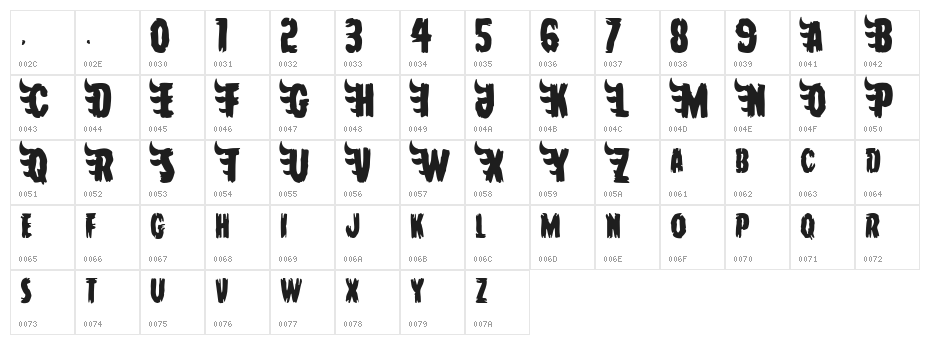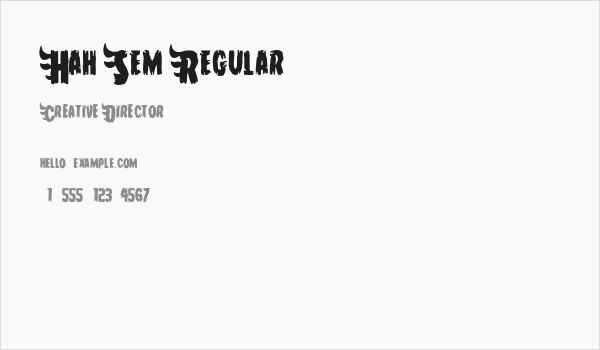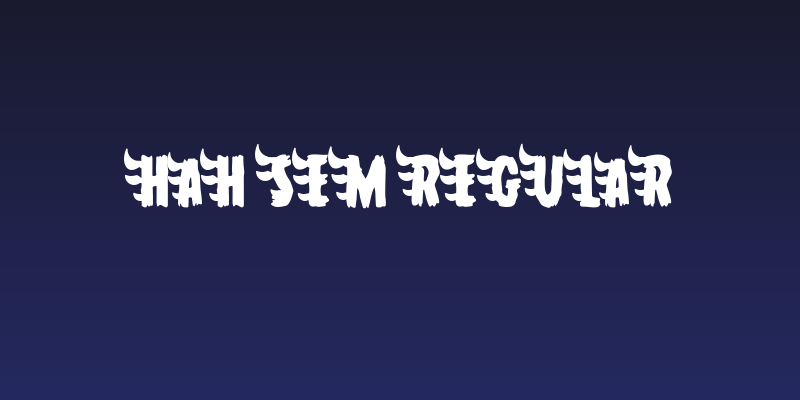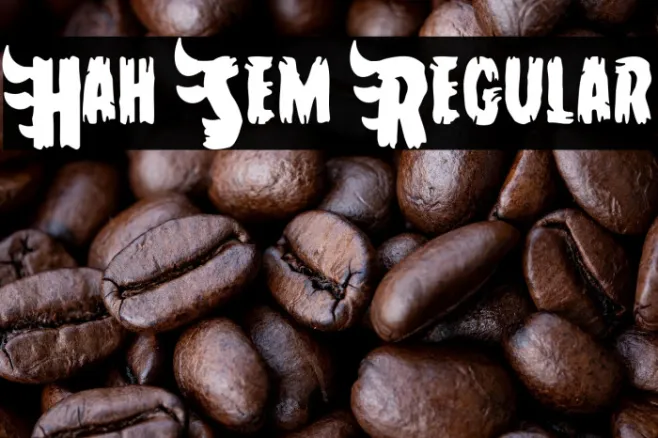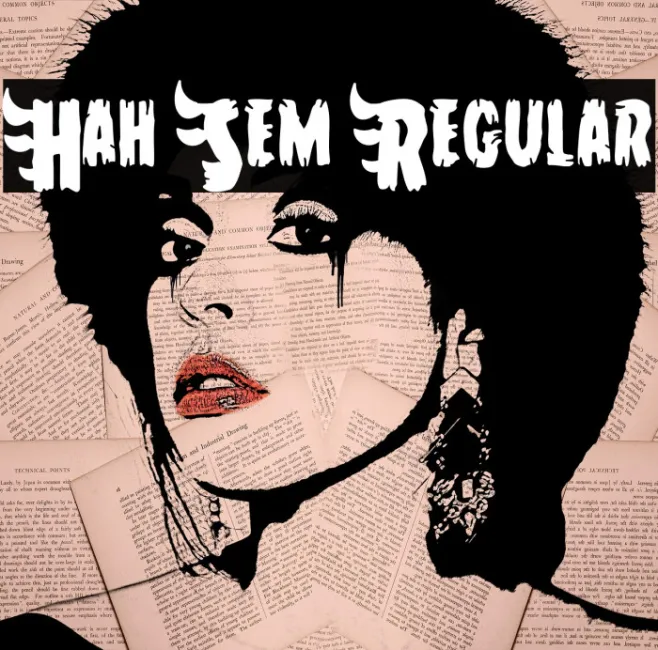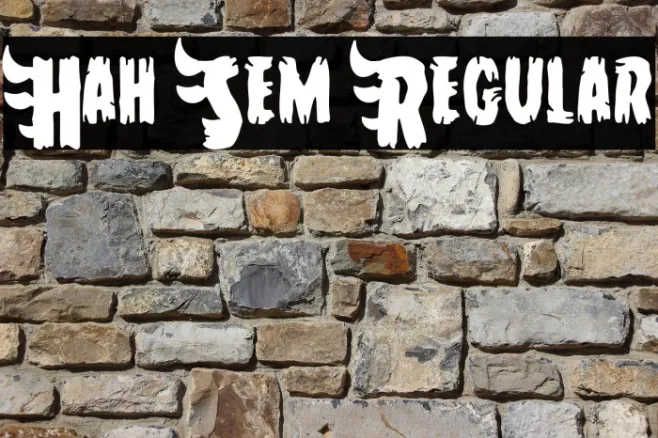
Hah Sem Regular Font
Hah Sem Regular Description
This font features a bold and dramatic style with a distinctively jagged and irregular outline, reminiscent of a horror or Halloween theme. The uppercase letters are particularly striking, with exaggerated serifs and a sense of movement that suggests dripping or melting. The numbers follow the same aesthetic, maintaining consistency across the character set. The font's unique appearance makes it ideal for creating eye-catching headlines or thematic designs that require a touch of the macabre or whimsical. Its bold presence ensures it stands out, making it less suitable for body text but perfect for decorative purposes.
| Proposed Projects | Ideal for Halloween-themed posters, horror movie titles, spooky event invitations, and decorative signage. |